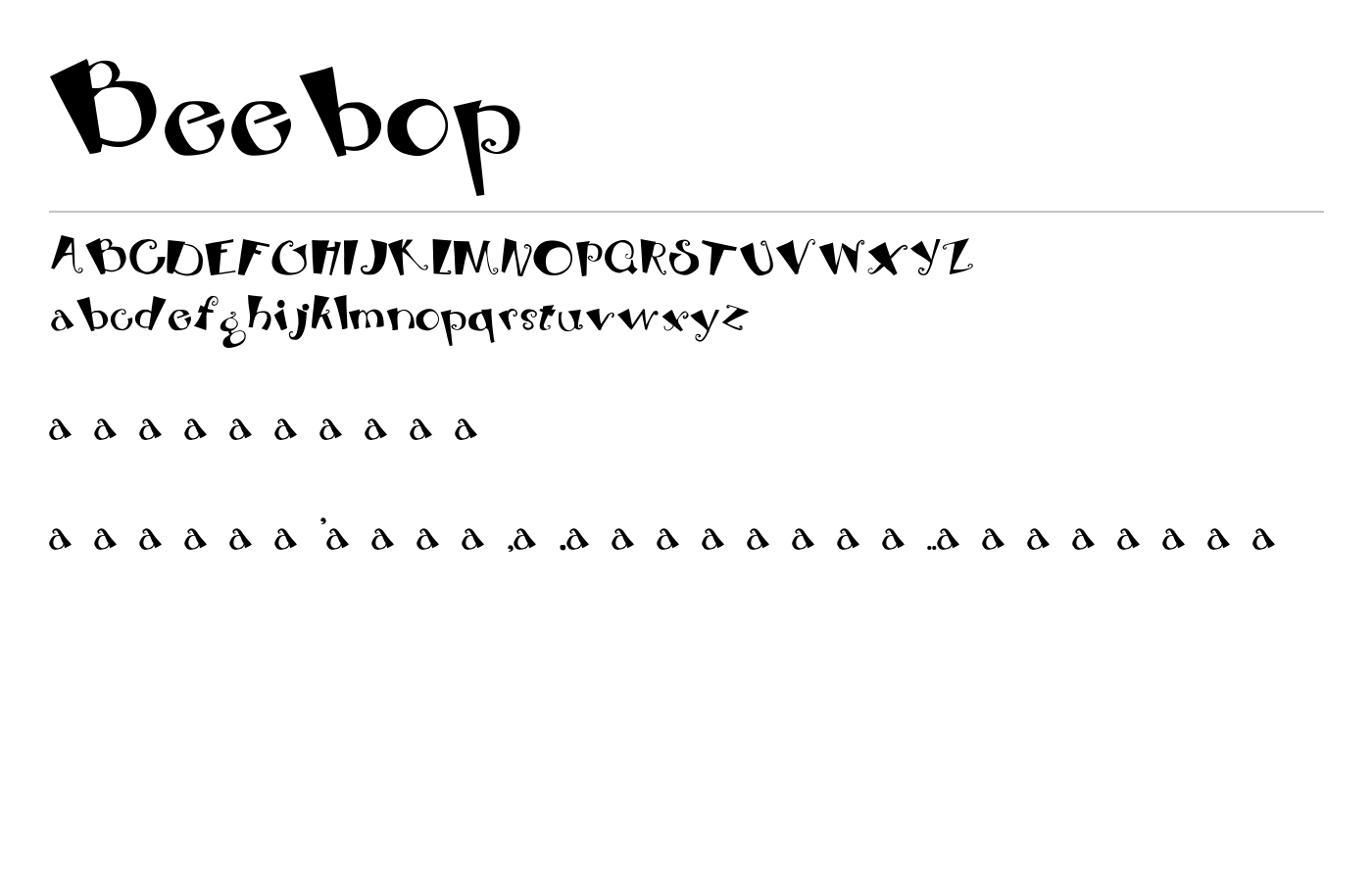
Beebop is a playful and whimsical serif font with a quirky, uneven design that gives it a lively and energetic personality. Its irregular shapes, varying stroke thickness, and unique letterforms make it ideal for creative projects, party invitations, or any design that needs a fun, informal touch. This font works best in headlines, logos, and decorative uses where its distinctive character can truly stand out.
Beebop Font
About Beebop Font